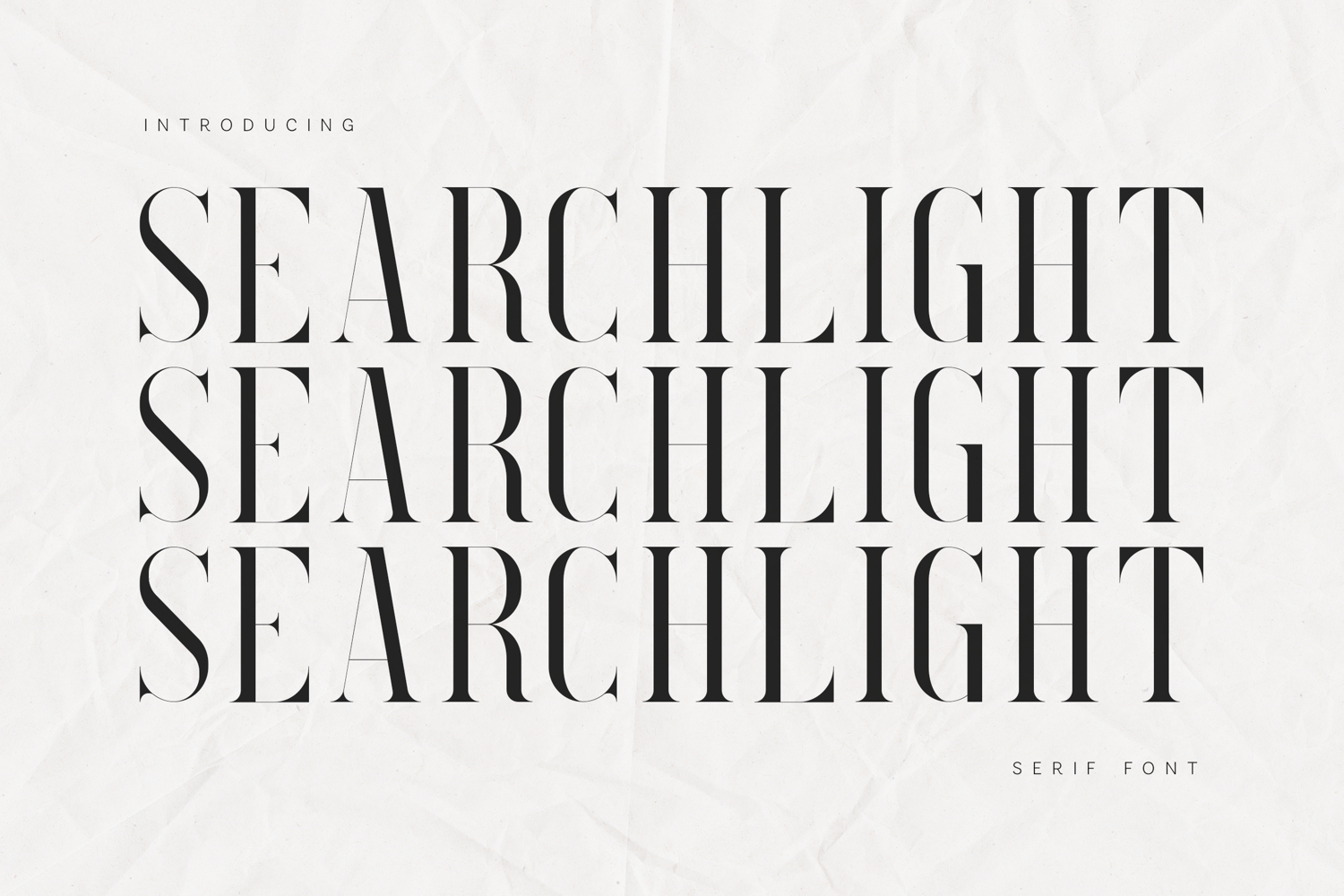
Searchlight Luxury High Contrast Serif Font
Searchlight is a refined high-contrast serif typeface crafted for luxury branding, editorial design, and statement typography.
Designed with sharp vertical stress and elegant sculpted serifs, Searchlight brings dramatic presence while maintaining sophistication and balance. Its distinctive thin-to-bold transitions create a timeless fashion aesthetic inspired by modern magazines and high-end visual identities.
This typeface is ideal for designers who want bold elegance, premium feel, and strong typographic personality.
Searchlight performs beautifully in large headlines, logos, fashion campaigns, cosmetic branding, and luxury packaging.
Perfect For:• Fashion branding
• Luxury logos
• Editorial & magazine layouts
• Beauty packaging
• Wedding design
• High-end social media graphics
• Brand identity systems
• Statement headlines
Carefully spaced and optimized for both print and digital projects.
Searchlight combines modern fashion energy with timeless serif elegance.